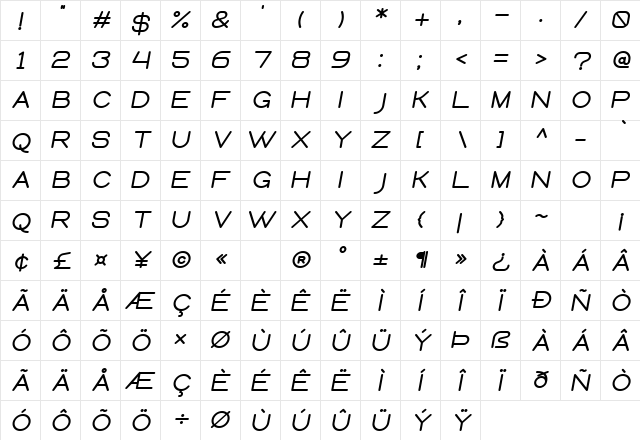
Queental Bold Italic
Design Context for Queental Typeface
Queental takes a measured approach to typography — its balanced proportions and neutral character make it a reliable workhorse for both digital and print work. The dynamic lean of this cut emphasises speed and emphasis in any layout. Its bold stroke weight gives it real presence on the page.
Pro Tip: Try Queental for annotation and caption copy alongside an upright companion — the contrast in angle creates a dynamic but ordered typographic system.